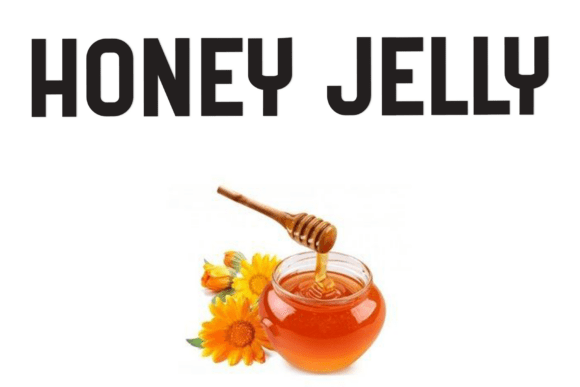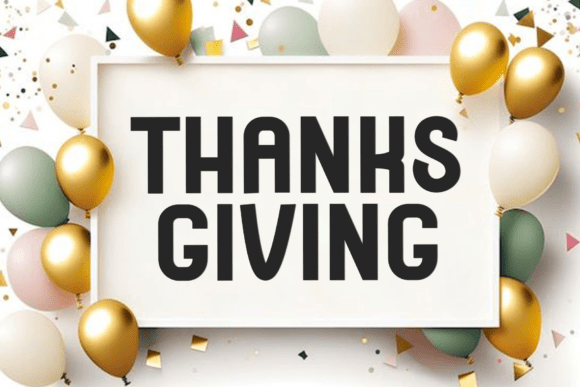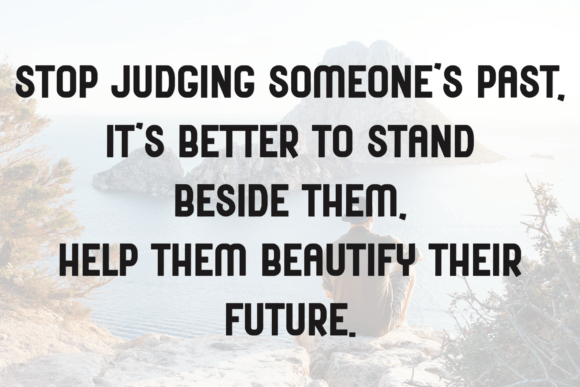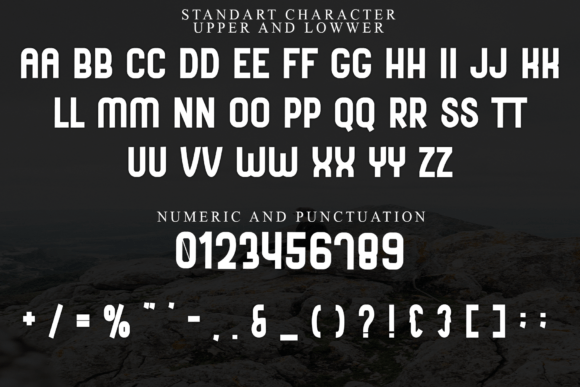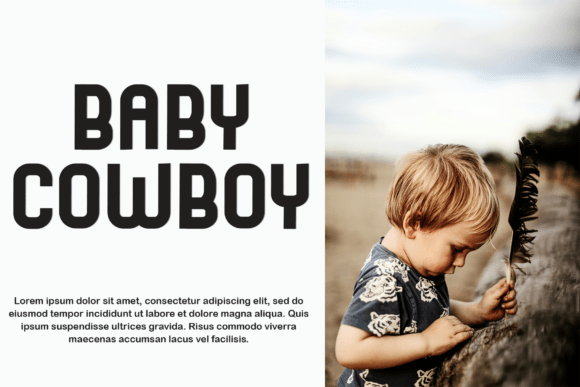
Introduction to Nothing Santa Font
Have you ever found yourself browsing through a collection of fonts, searching for that one special design element to bring your creative project to life? I’m sure many designers can relate to this moment of inspiration. For me, it’s like stumbling upon a hidden treasure that elevates the entire design from ordinary to extraordinary.
That’s exactly what the Nothing Santa Font does. With its soft, unique touch and distinctive strokes, it’s a game-changer for designers looking to add a special character to their work. This high-quality font is perfect for a wide range of creative projects, from designing festive holiday cards to crafting beautiful illustrations. And the best part? It’s available for free download, making it an invaluable design resource for both professionals and hobbyists alike.
Whether you’re working on a design project or simply want to add a personal touch to your craft, the Nothing Santa Font is sure to impress. Its transparent background and versatility make it a valuable asset for any creative endeavor.
Key Features of Nothing Santa Font
- High-quality design: Nothing Santa Font is a beautifully crafted font perfect for creative projects that require a unique touch.
- Transparent background: The transparent background of Nothing Santa Font allows for seamless integration with any design or image, giving you complete control over your creative project.
- Resolution: The font is designed at a high resolution, making it perfect for printing and other high-resolution applications.
- Unique characteristics: Nothing Santa Font features a unique and playful design, making it ideal for projects that require a fun and festive tone.
- Size: The font includes a range of sizes and styles, allowing you to customize it to fit your specific design needs.
Honest Review: Nothing Santa Font
As a designer, I’ve had the chance to work with a variety of fonts for my creative projects, and I’m excited to share my thoughts on the Nothing Santa Font. This free download has been a game-changer for my holiday-themed designs, and I’m impressed by its high quality.
- ✨ Unique and playful design that adds a festive touch to any project
- ✨ Clear and legible even at small font sizes
- ✨ Transparent background option allows for easy customization
- ⚠️ Limited character set, which may not be suitable for long blocks of text
- ⚠️ Some users may find the font too ornate for certain design styles
Overall, I’m really impressed with the Nothing Santa Font. It’s a great addition to any designer’s toolkit, especially for holiday-themed projects. With its transparent background and high-quality design, it’s easy to customize and use in a variety of creative projects.
The Nothing Santa Font is perfect for holiday-themed designs, such as Christmas cards, gift tags, and social media posts. Its high quality and transparent background make it a valuable design resource for various creative projects.